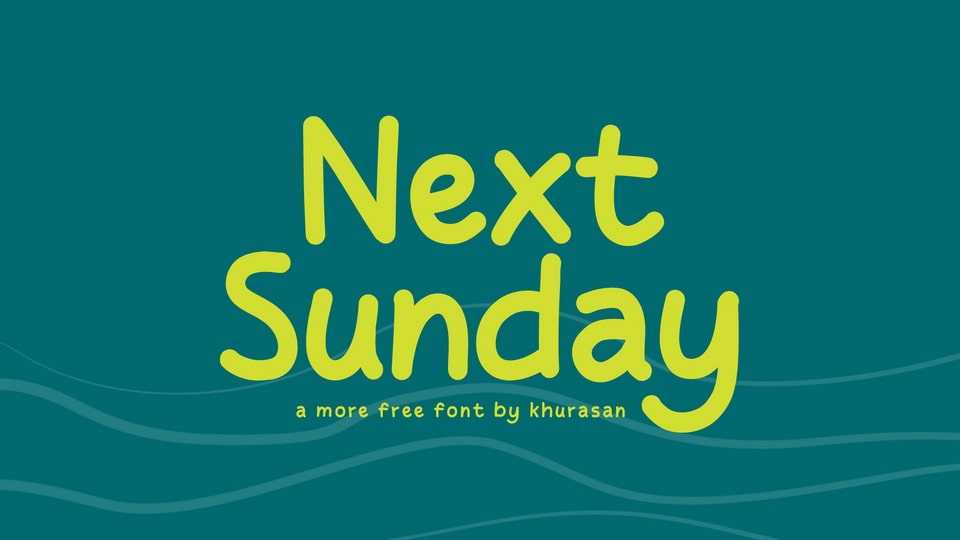
Download Next Sunday font, a typeface that combines the lively spirit of comics with the ease of handwritten text. Each character is crafted to convey a sense of dynamic conversation and playful interaction, making it ideal for designs that require a comic-inspired twist.